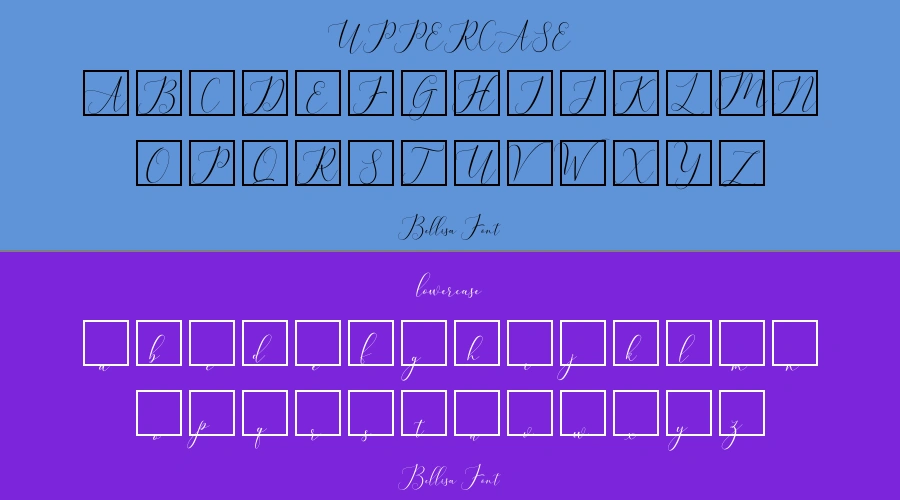
About Bellisa Font
Bellisa Font represents a sophisticated approach to type design, balancing harmonic curves with versatility. Perfect for traditional magazines, this font family showcases impressive precision and system compatibility throughout its character set. Designers appreciate its versatility and reliability.
Designers will appreciate nuanced touches including balanced proportions and classic proportions, adding sophistication to any project. These features become apparent in hero imagery, where print fidelity matters most. The careful treatment of letterfit and knowledge transmission ensures optimal performance.
Bellisa Font |